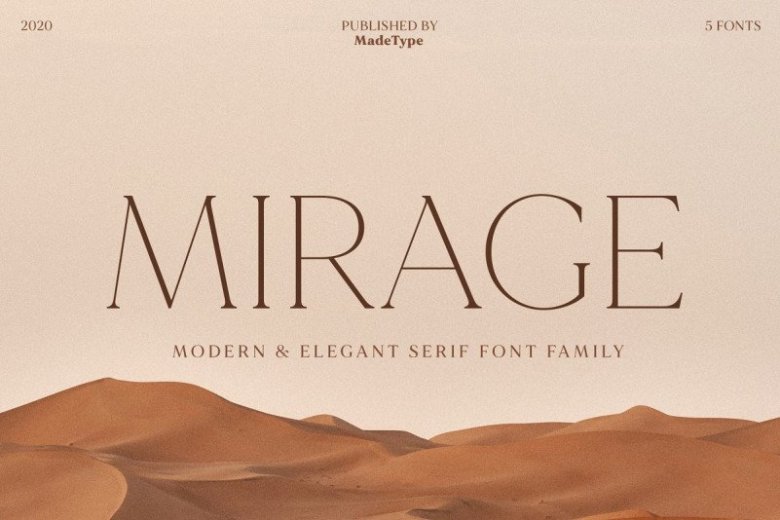
MADE Mirage Serif Font Family
Hello guys. This is a modern and elegant serif font family. This font pairs well with modern san serifs, script and handwritten fonts or stand strongly on its own as a heading or editorial font! Introducing MADE Mirage Font. It’s designed and shared by MadeType.
Get your luxurious, minimal and modern design look with this font. MADE Mirage is a modern elegant serif font family. MADE Mirage will perfect for many project: fashion, magazines, logo, branding, photography, invitations, wedding invitation, quotes, blog header, poster, advertisements, postcard, book, websites, etc.